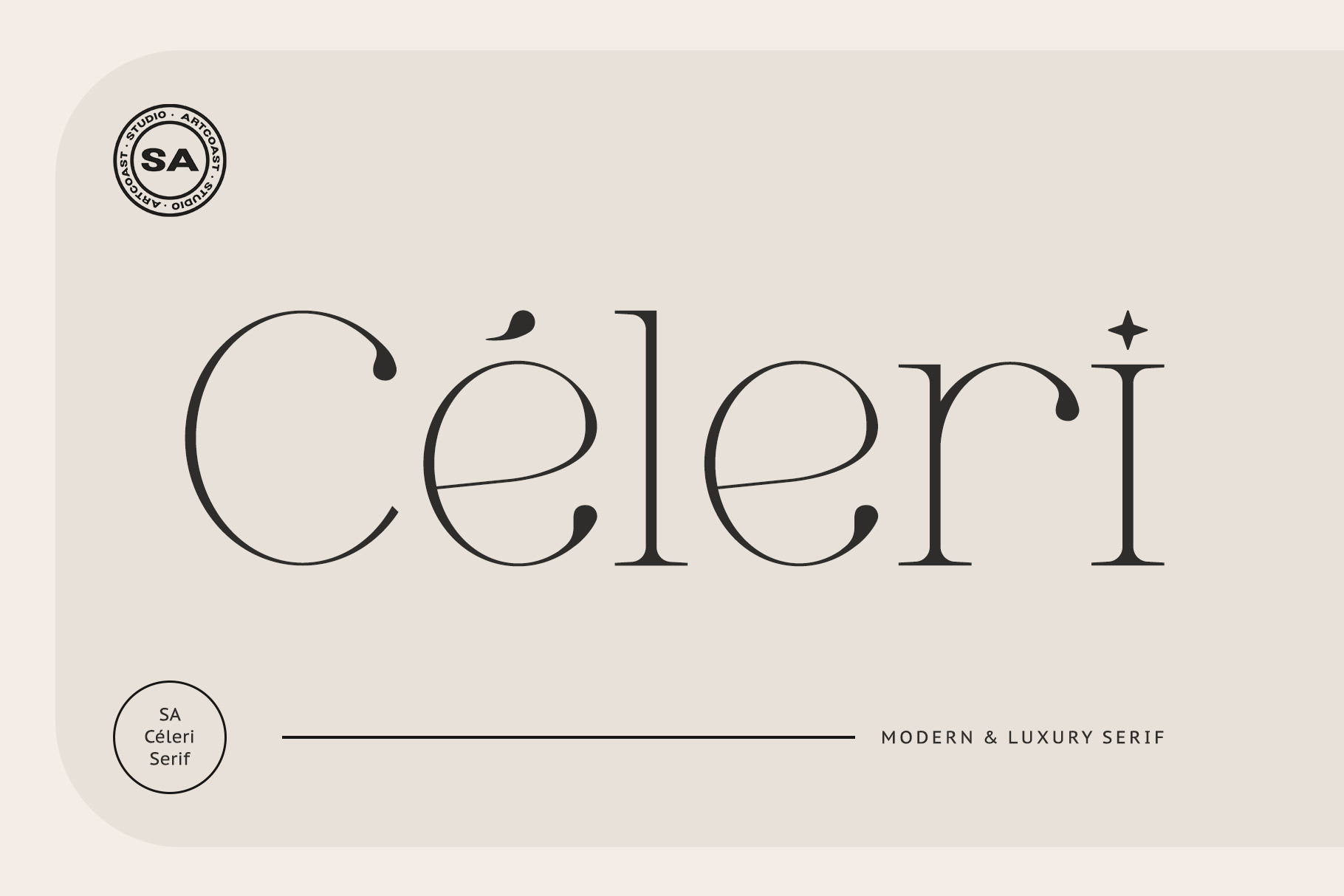
Céleri Luxury Modern Serif Font
Céleri is a refined high-contrast serif created for luxury branding and editorial display. Slender strokes, sculptural curves, celestial details, and distinctive alternative letterforms give the typeface a fashion-forward character while preserving clarity and elegance.
Uppercase and lowercase Latin letters
Numerals and punctuation
Stylistic alternates
Custom ligatures
One carefully crafted regular style
Use Céleri for fashion editorials, luxury logos, boutique branding, invitations, packaging, magazine headlines, posters, websites, and social media graphics. Its refined proportions work especially well at display sizes and can be paired with a clean sans serif for supporting text.